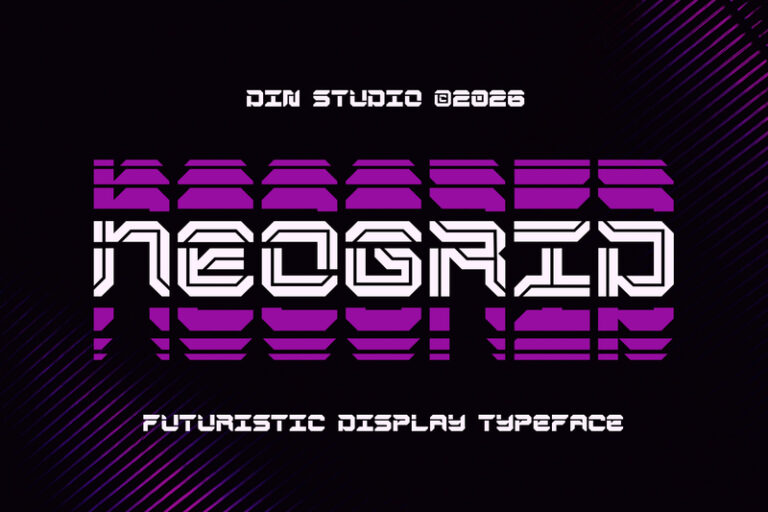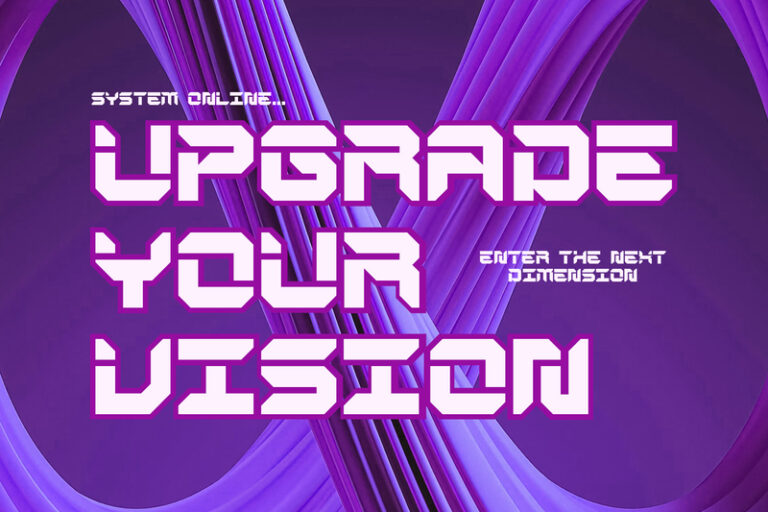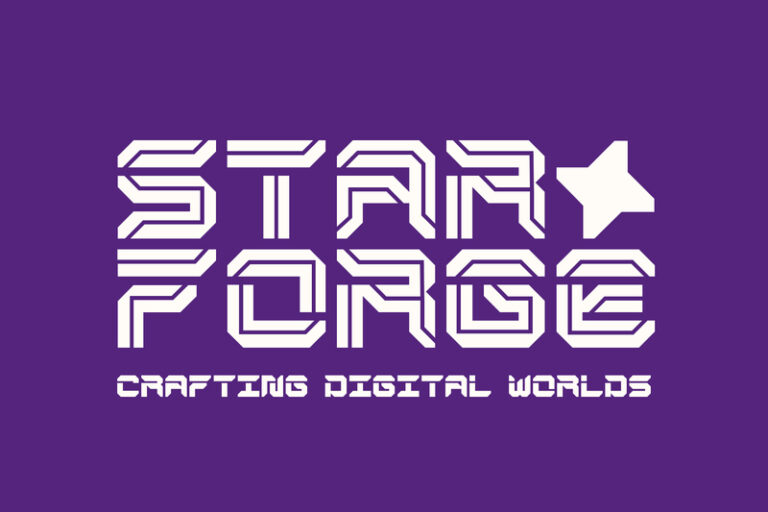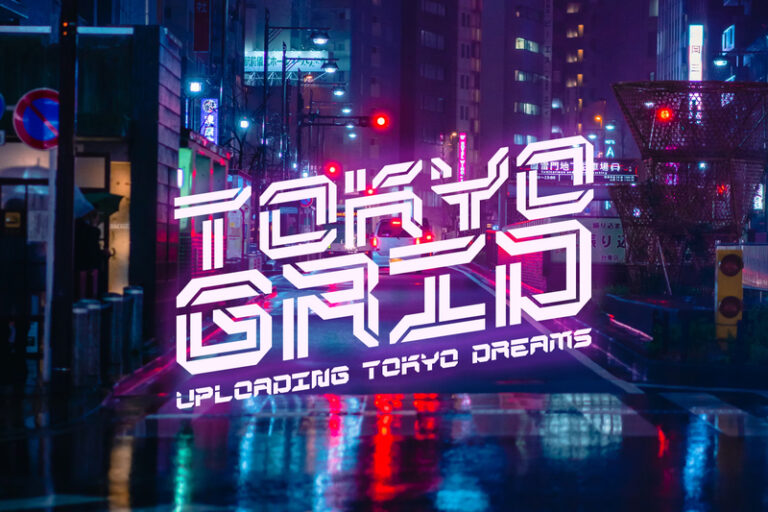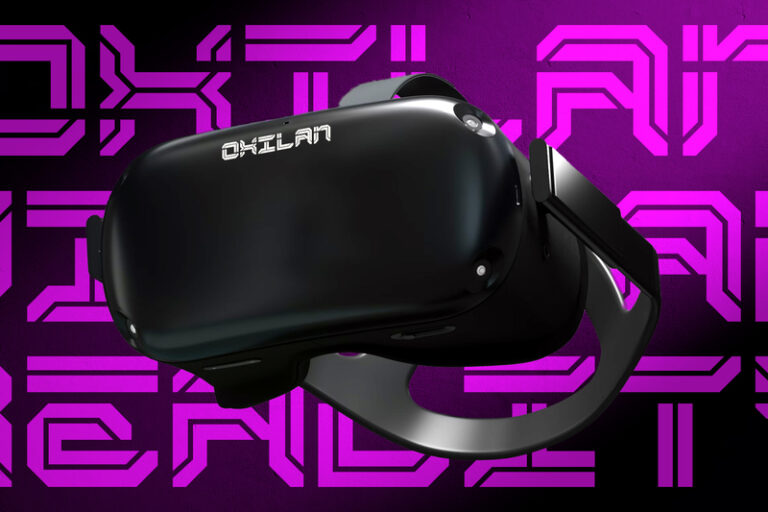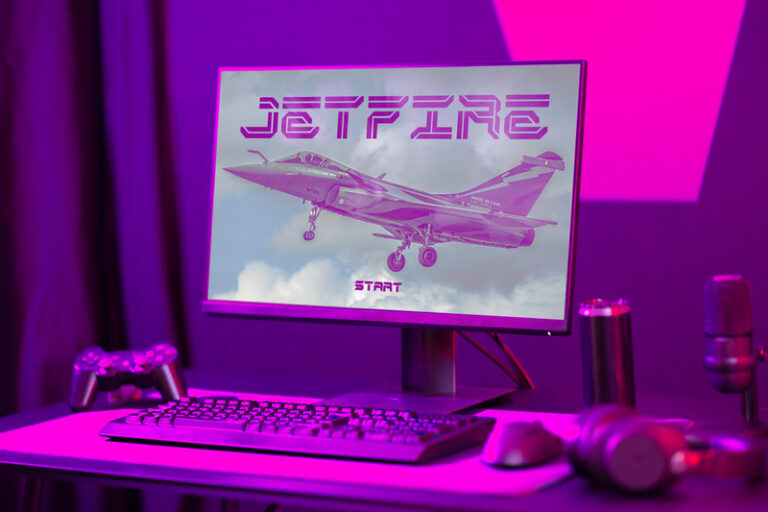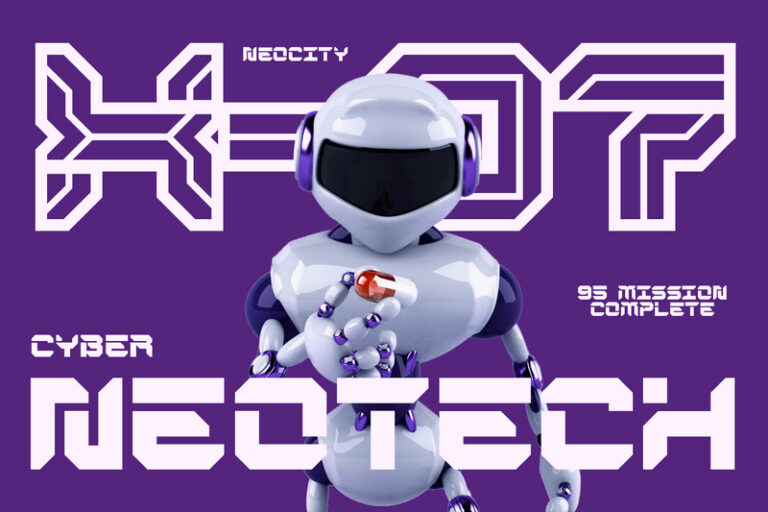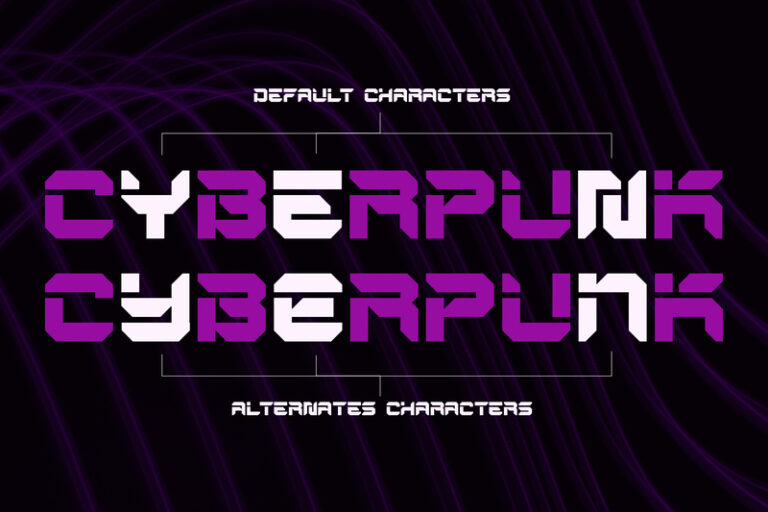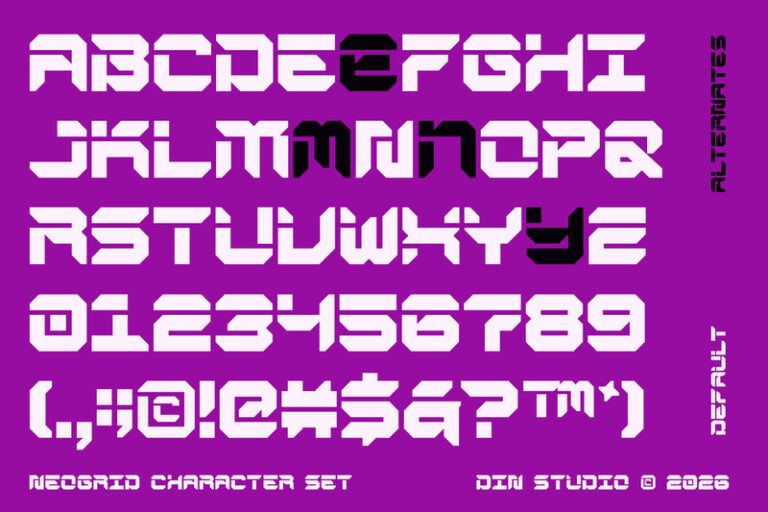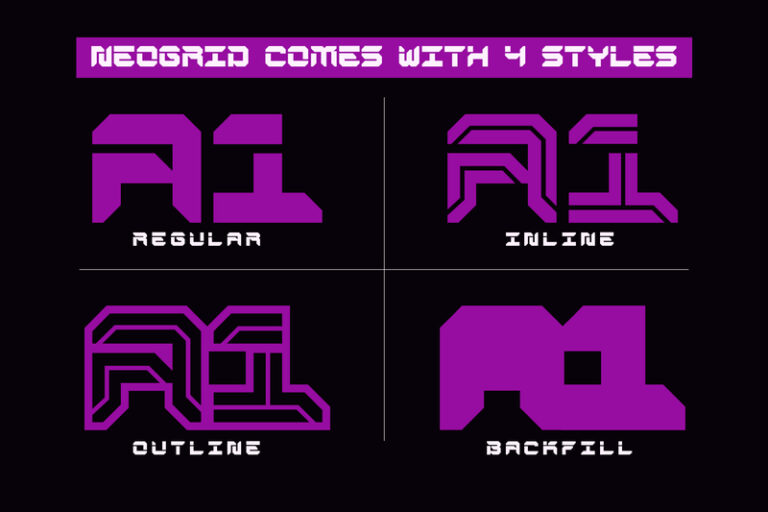
Neogrid – Futuristic Display Font
Neogrid is a bold display font that embodies the essence of futuristic design, crafted to deliver a powerful visual impact in modern creative projects. With its strong weight, geometric structure, and cutting-edge aesthetic, Neogrid stands out as a forward-thinking typeface that captures the spirit of technology, innovation, and digital culture. Every letter is designed with precision, featuring sharp angles and structured forms that create a sleek, high-tech appearance. In addition, enjoy the features here.
- Alternates
Neogrid fits in logos, quotes, branding, posters, and many more designs. Find out more ways to use this font by taking a look at the font preview.